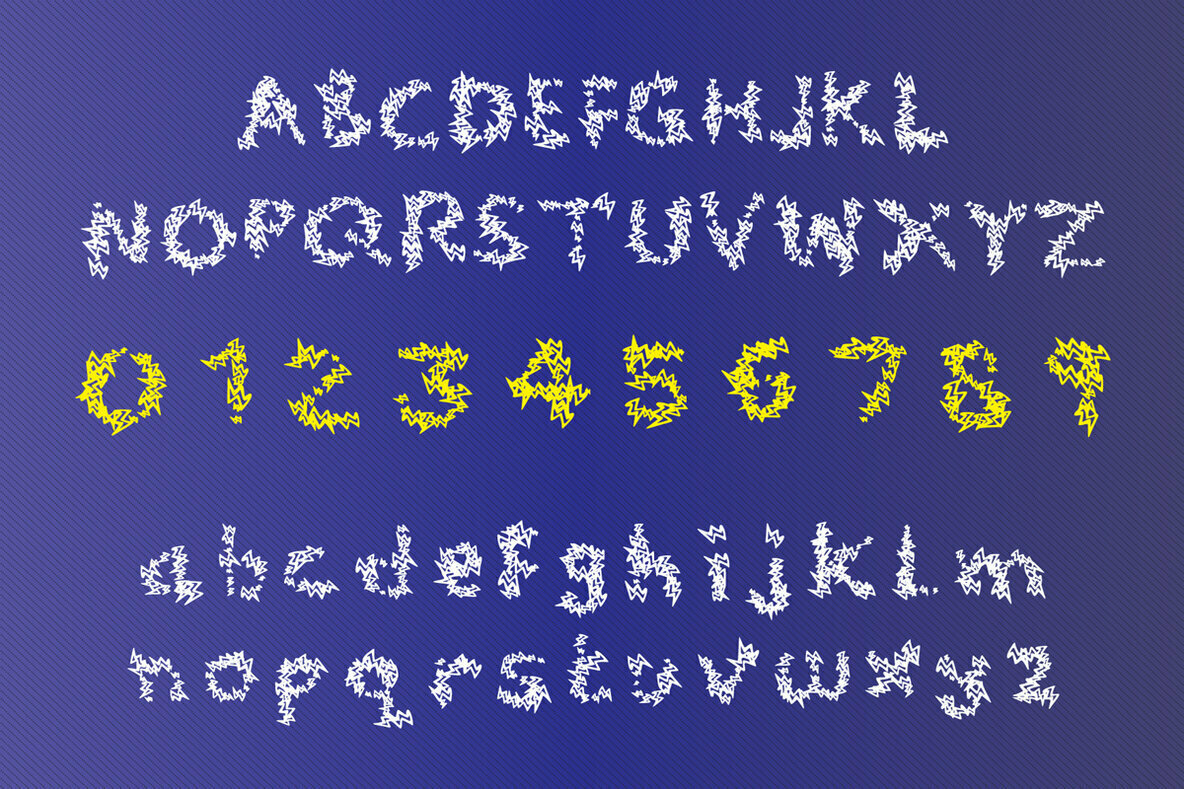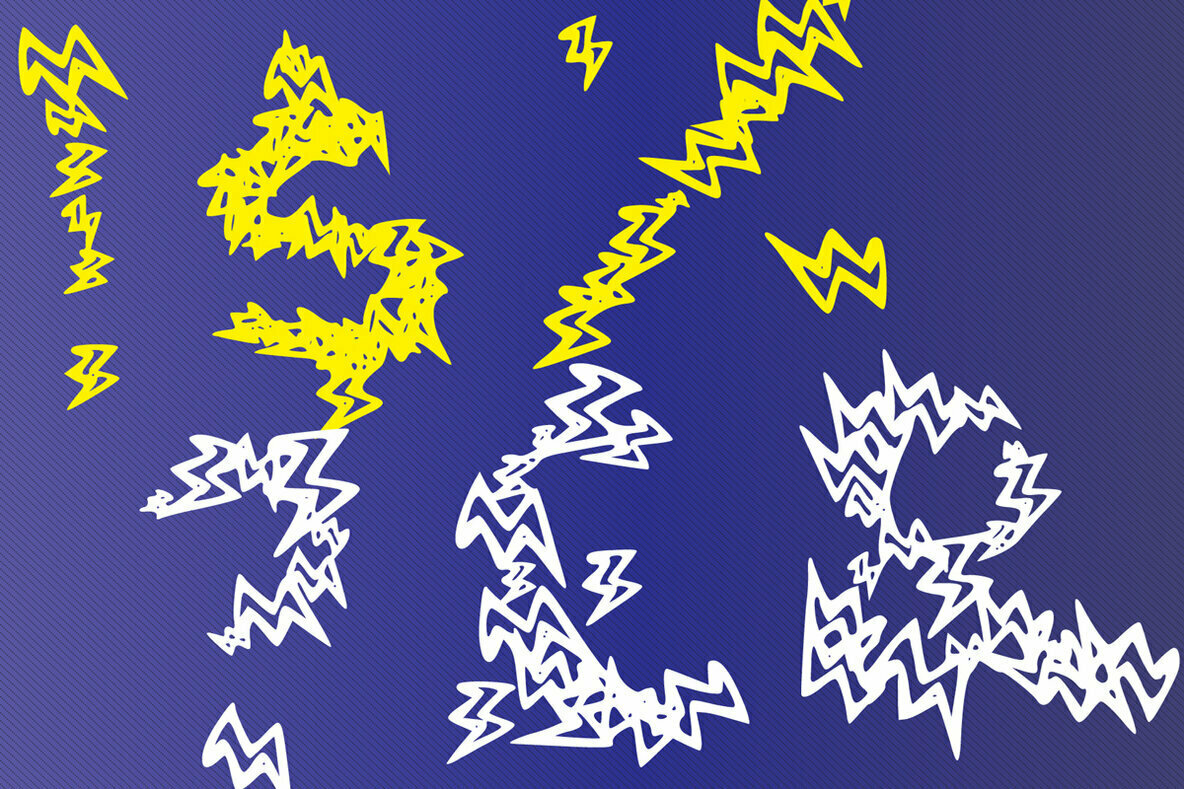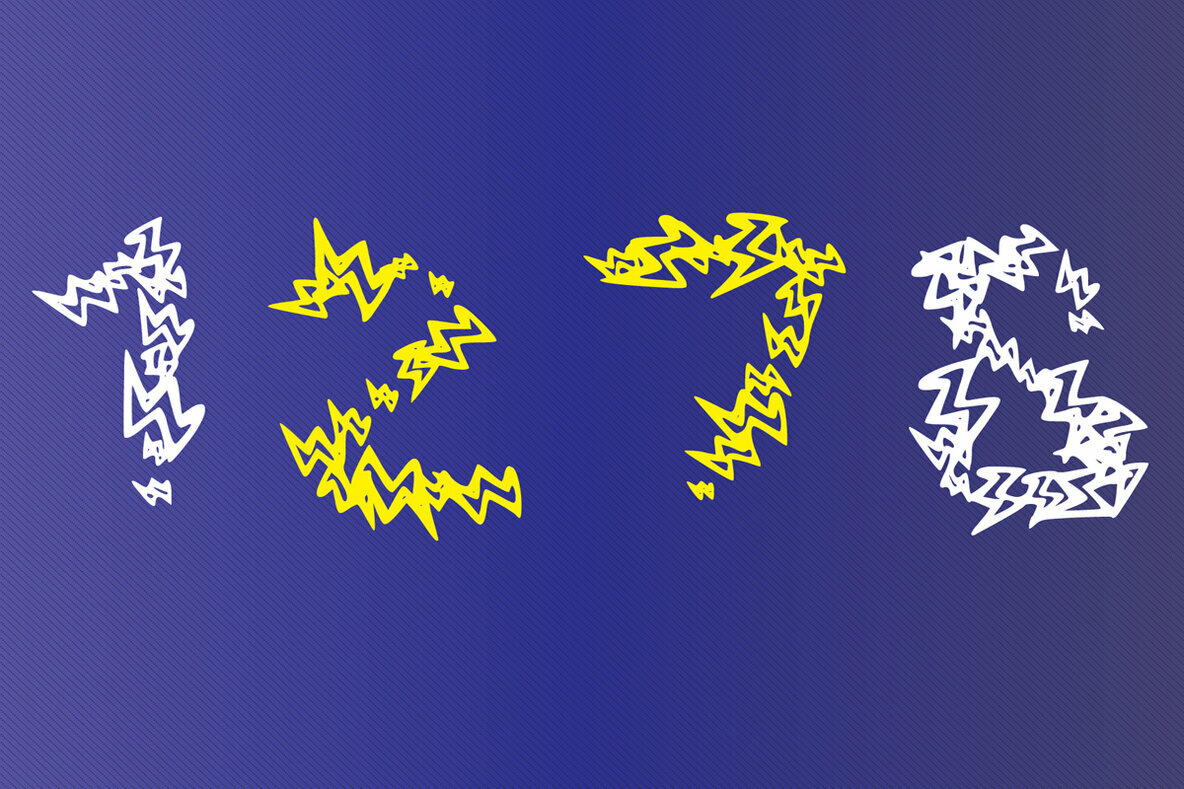
Lighting Font
Lighting
Lighting is a unique and interesting display font. A little bit quirky, this font looks incredibly adept on a wide variety of contexts!